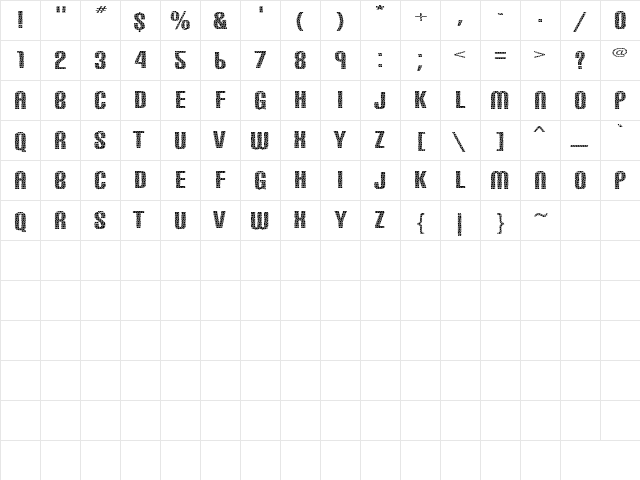
Honey Bag Regular
Design Context for Honey Bag Typeface
Honey Bag is a composed and adaptable typeface that performs quietly and consistently across a wide range of design contexts.